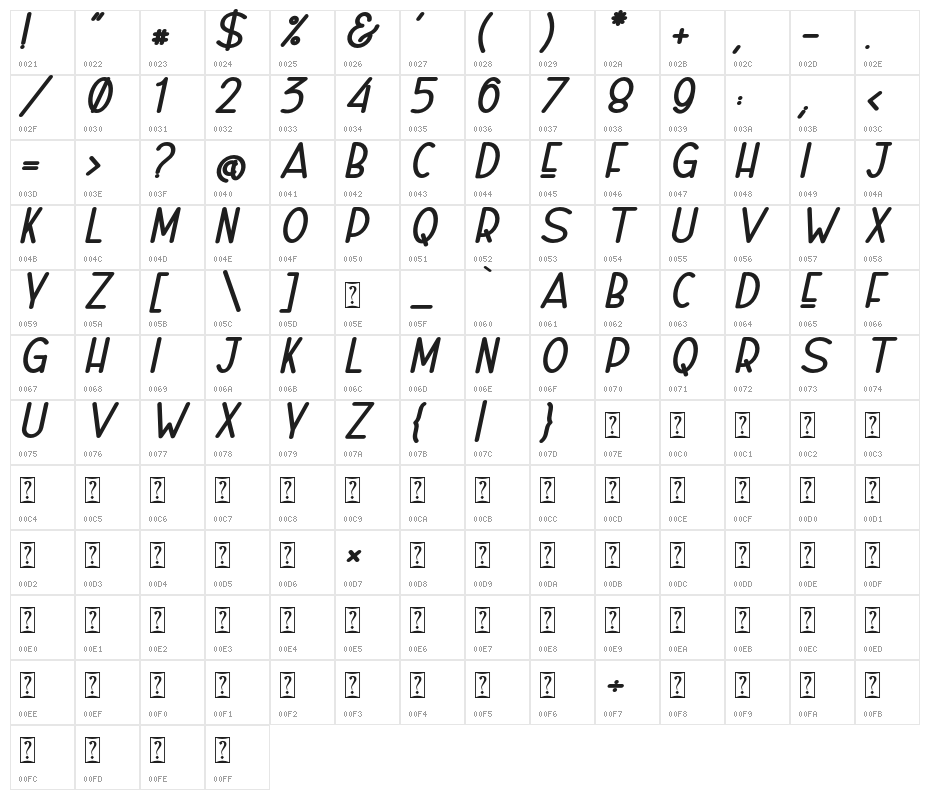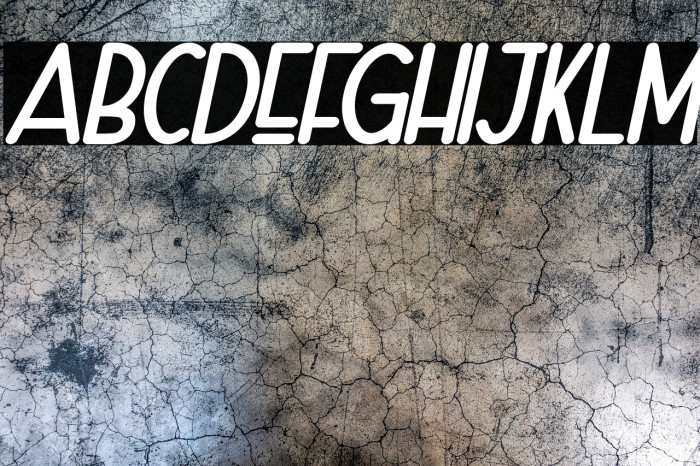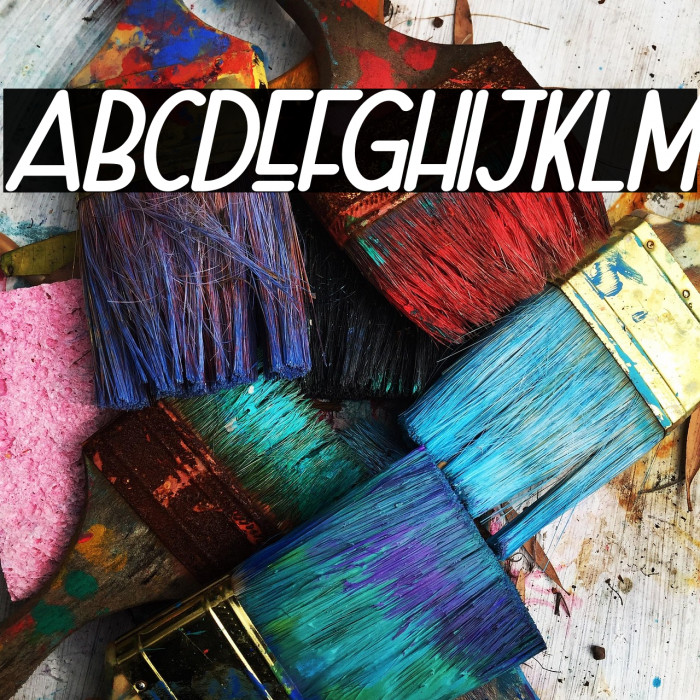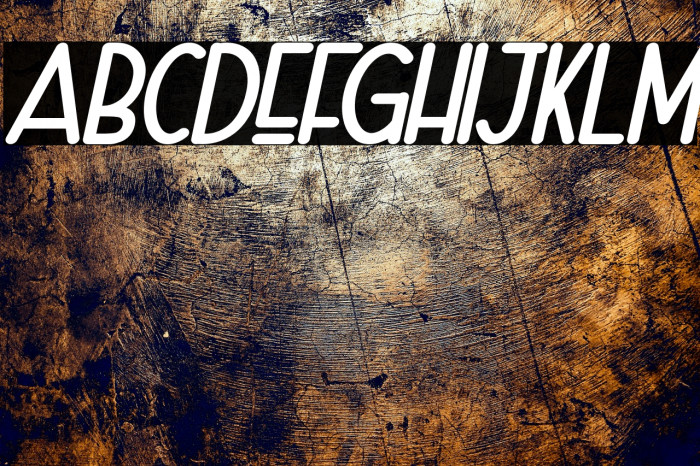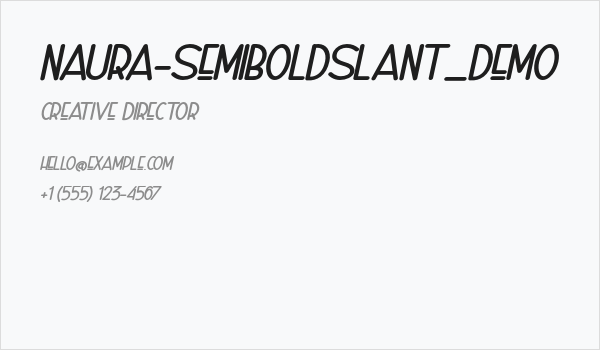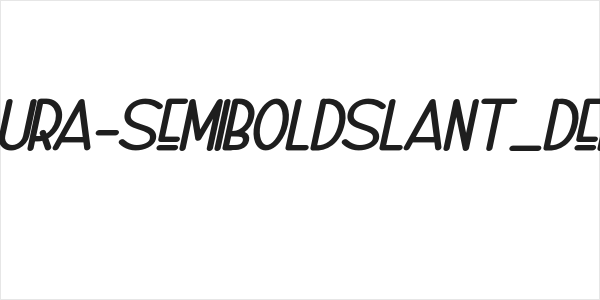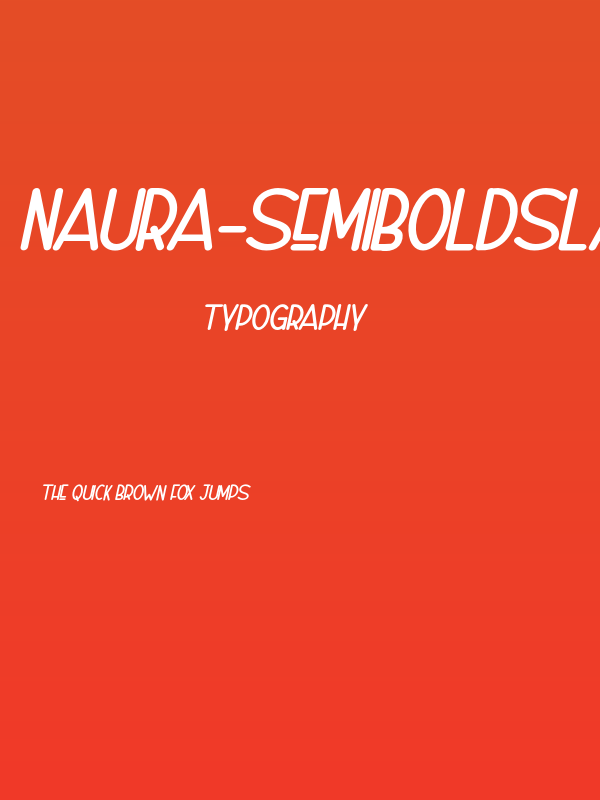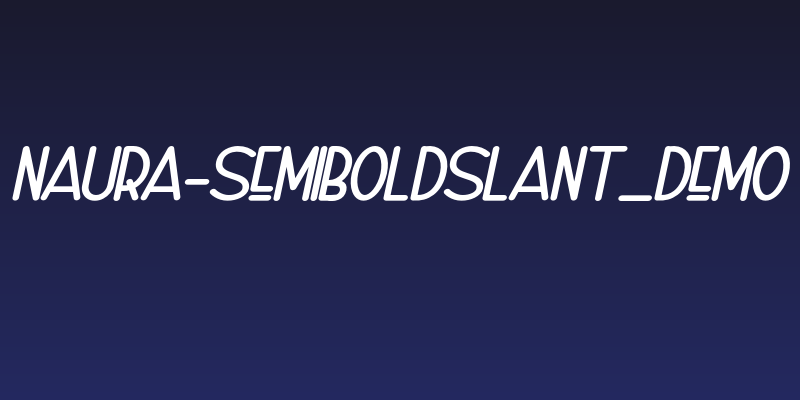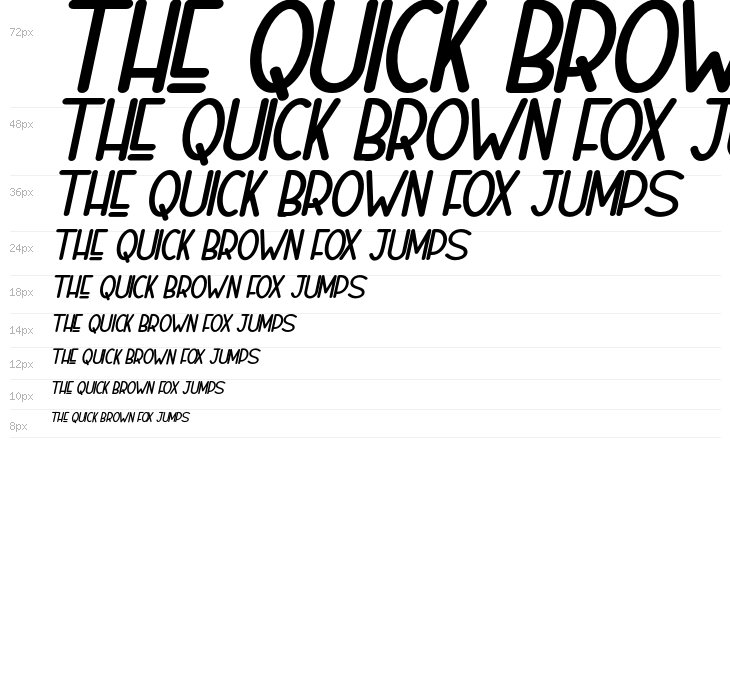
Naura-SemiBoldSlant_DEMO Font
Naura-SemiBoldSlant_DEMO Description
This font features a dynamic and energetic style with a slanted, semi-bold appearance. The characters are slightly italicized, giving them a forward-leaning posture that suggests movement and speed. The strokes are consistent in weight, offering a medium contrast that balances readability with style. The uppercase and lowercase letters maintain a cohesive look, with rounded edges and smooth curves. The numerals and special characters are designed to match the overall aesthetic, ensuring uniformity across all glyphs. This font is ideal for projects that require a modern and lively touch.
| Proposed Projects | Ideal for branding, advertising, sports-related designs, and dynamic headlines. |